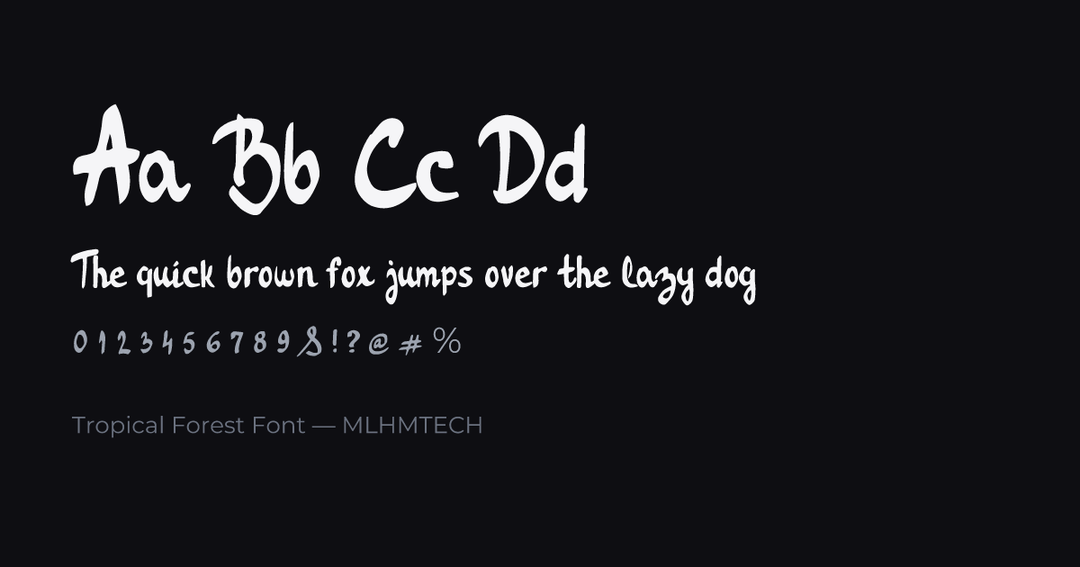
Tropical Forest Font
Tropical Forest is a whimsical handwritten font with a lush, tropical feel. Perfect for logos, invitations, and branding that need a natural, adventurous touch.
Tropical Forest is a whimsical handwritten font with a lush, tropical feel. Its playful letterforms evoke the spirit of adventure and the beauty of nature, making it ideal for a wide range of creative projects.
Whether you're designing a logo for a beach resort, crafting wedding invitations with a jungle theme, or adding a personal touch to your social media posts, this font brings a unique, organic charm. The font's smooth curves and varied stroke weights give it a handcrafted look that stands out.